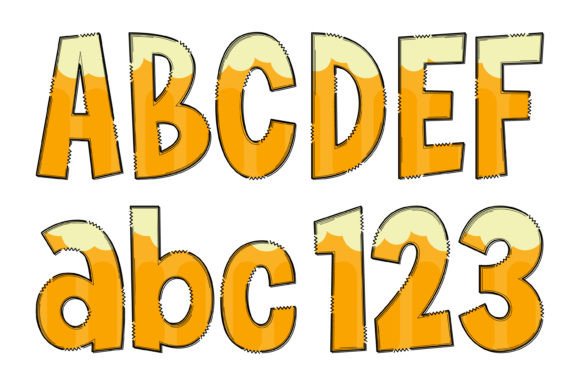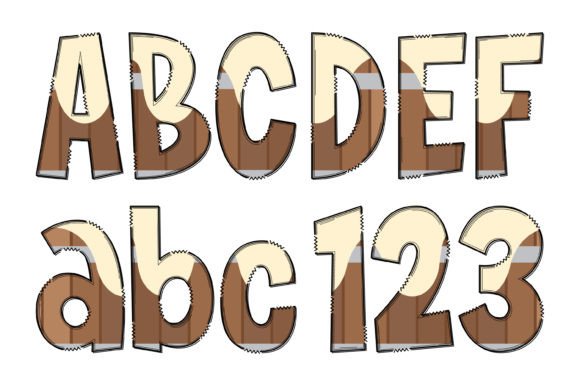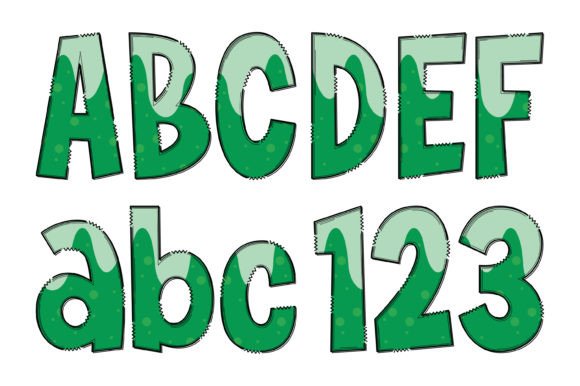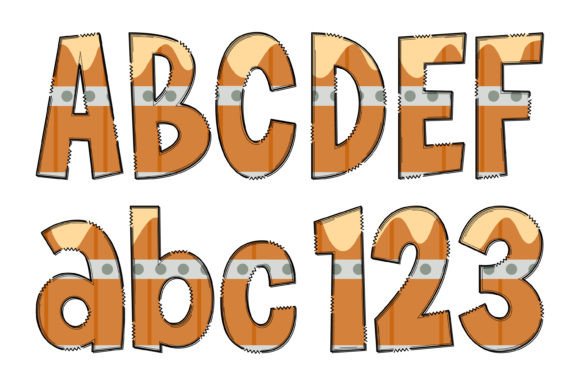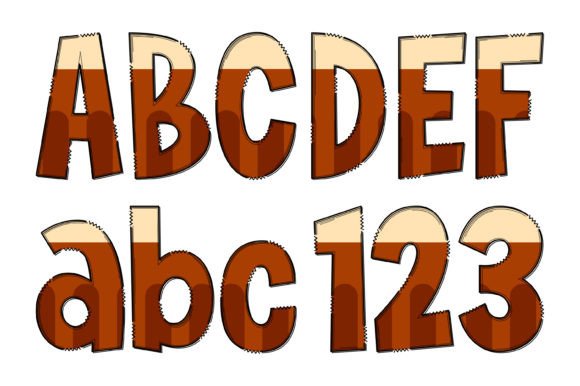
Introducing the Beer Day Bundle Font: Elevate Your Designs with a Playful Touch
Are you a designer or crafter looking for a font that can add a playful and artistic feel to your projects? Look no further than the Beer Day Bundle Font! This unique font is perfect for creating engaging and eye-catching designs that are sure to capture the attention of your audience. In this article, we’ll explore the features and benefits of the Beer Day Bundle Font, and how you can use it to take your designs to the next level.
What is the Beer Day Bundle Font?
The Beer Day Bundle Font is a color font (Opentype-SVG) that is designed to bring a touch of whimsy and fun to your designs. It’s perfect for projects that require a playful and artistic feel, such as children’s books, posters, invitations, greeting cards, and more. With its unique and colorful design, this font is sure to make your projects stand out from the crowd.
Use Cases for the Beer Day Bundle Font
The Beer Day Bundle Font is versatile and can be used in a variety of design projects. Here are a few examples:
- Children’s Books: Whimsical and colorful fonts like the Beer Day Bundle Font are perfect for children’s books. They create an engaging and fun reading experience for young audiences, making the story come alive.
- Posters: Add a playful touch to your posters with the Beer Day Bundle Font. It’s perfect for promoting events, products, or services in a fun and eye-catching way.
- Invitations: Make your invitations stand out with the Beer Day Bundle Font. It’s perfect for birthday parties, baby showers, and other celebrations.
- Greeting Cards: Add a personal touch to your greeting cards with the Beer Day Bundle Font. It’s perfect for birthdays, holidays, and other special occasions.
Tips for Using the Beer Day Bundle Font
Here are a few tips for getting the most out of the Beer Day Bundle Font:
- Experiment with Colors: The Beer Day Bundle Font is a color font, so don’t be afraid to experiment with different colors and combinations.
- Mix and Match: Try pairing the Beer Day Bundle Font with other fonts to create a unique and eye-catching design.
- Pay Attention to Readability: While the Beer Day Bundle Font is designed to be playful and artistic, make sure it’s still easy to read.
The Beer Day Bundle Font is a unique and versatile font that’s perfect for designers and crafters looking to add a playful touch to their projects. With its colorful design and compatibility with a range of design software, it’s sure to become a favorite in your font collection. So why wait? Download the Beer Day Bundle Font today and start creating engaging and eye-catching designs that will capture the attention of your audience!